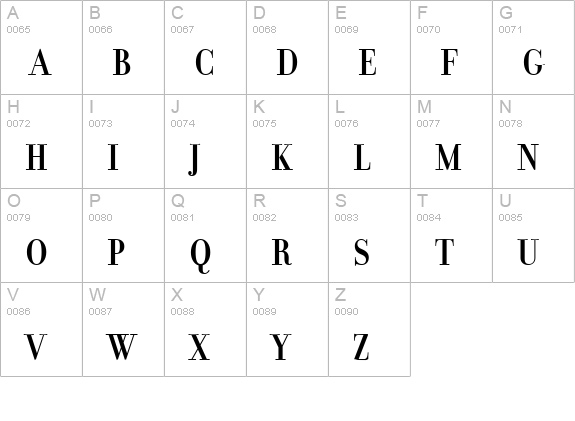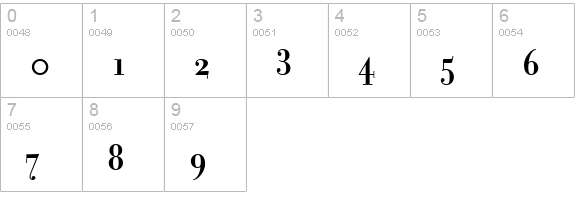
FilosofiaGrandBold Bold Font Details
FilosofiaGrandBold Bold is a strong, high-contrast variant in the FilosofiaGrandBold typeface family \xE2\x80\x94 well suited to headlines, attention-grabbing titles, and strong calls-to-action.
FilosofiaGrandBold Bold font exudes a sense of strength and sophistication with its bold and commanding appearance. This typeface is perfect for making a bold statement in any design project, whether it be for a logo, poster, or website. The sturdy serifs and clean lines of FilosofiaGrandBold Bold give it a timeless and elegant appeal that is sure to capture attention. And the best part? FilosofiaGrandBold Bold font is available for free download at FontsMarket.com! This means you can easily access this striking typeface and incorporate it into your creative projects without any cost. Whether you're a designer, artist, or simply someone looking to enhance their text with a touch of boldness, FilosofiaGrandBold Bold font is the perfect choice. Download it now and elevate your designs with this stunning and impactful typeface.